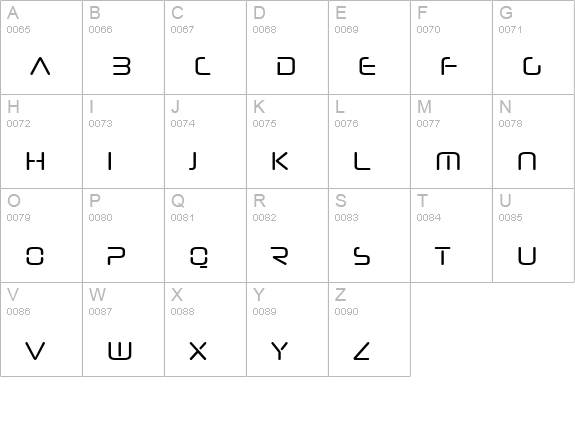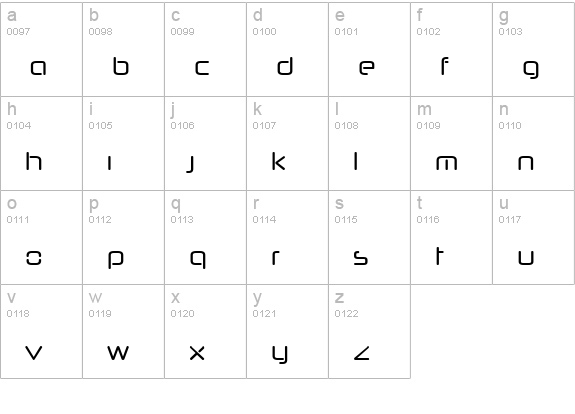
Neuropol Nova Cnd Font Details
Neuropol Nova Cnd font is a futuristic and sleek typeface that exudes a sense of modernity and innovation. With its clean lines and geometric shapes, this font is perfect for projects that require a contemporary and cutting-edge look. Whether you are designing a website, creating a logo, or crafting a poster, Neuropol Nova Cnd will surely make your text stand out. The best part about Neuropol Nova Cnd font is that it is completely free to download! You can easily access this striking typeface at FontsMarket.com, where you can enhance your design projects without breaking the bank. Don't miss out on the opportunity to add this stylish and versatile font to your collection today.